Story of Hints 05: “Extreme Points and Hints”
In the field of font design, it is recommended to place points (control points) at the extreme points in the composition of curved lines. Extreme point refers to the position in which the angle of the handle used to draw a curved line is completely “horizontal (0 degrees)” or “vertical (90 degrees).” In terms of a circle, these would be the four points at the farthest edges of north, south, east, and west.
For example, in the italic “O,” the visual vertex is positioned diagonally. In terms of the data structure, points are often placed at the highest and lowest positions, and the left and right edge positions (extreme points) on the coordinates, apart from that visual vertex.
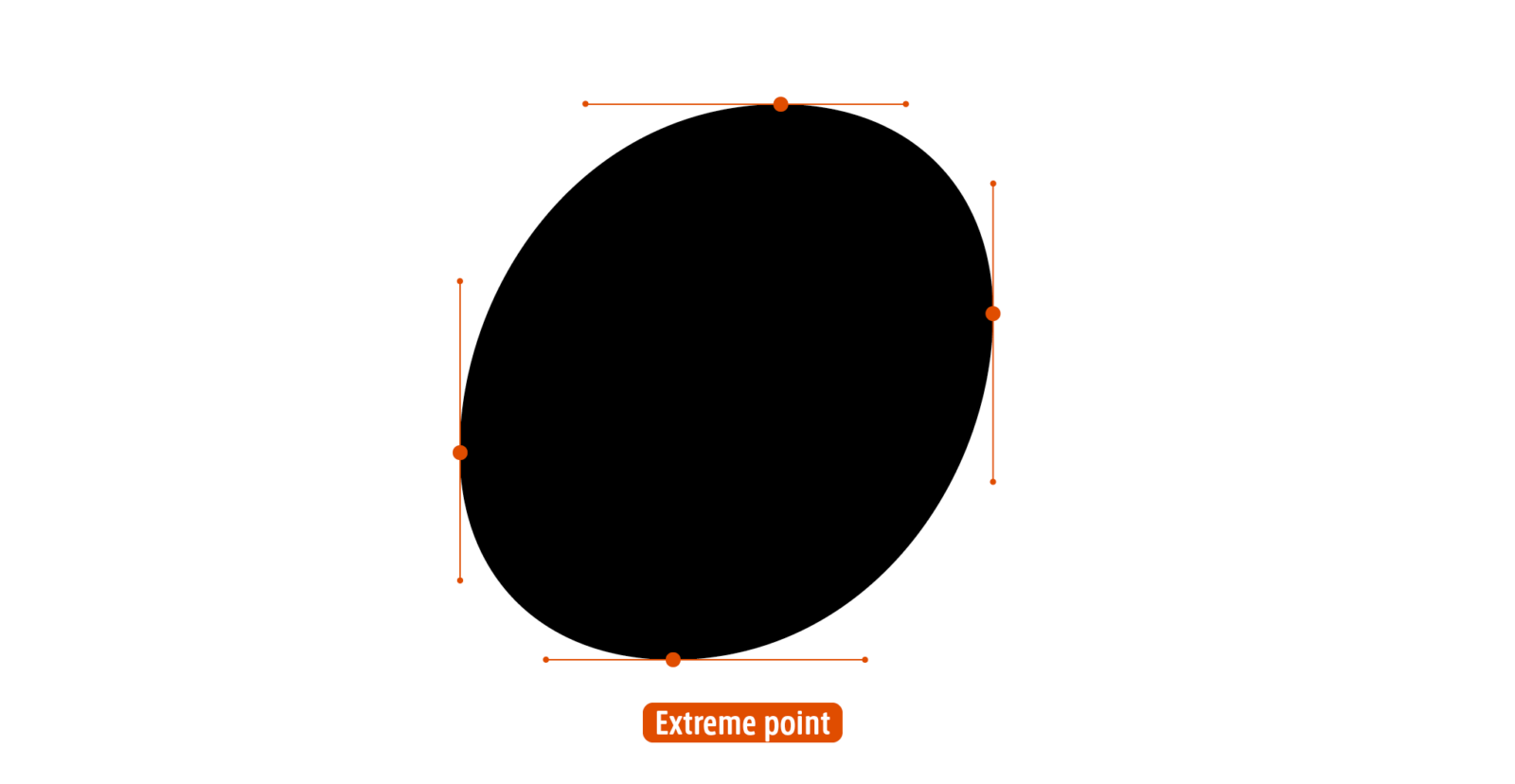
Having extreme points clarifies the outline structure, which makes post-processing more stable. As extreme points are also the basis for hinting processing, this plays an important role in terms of drawing quality.